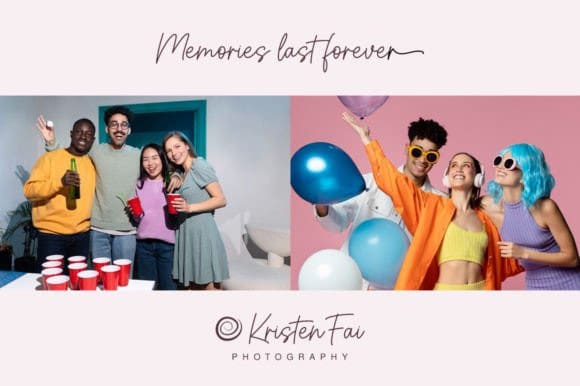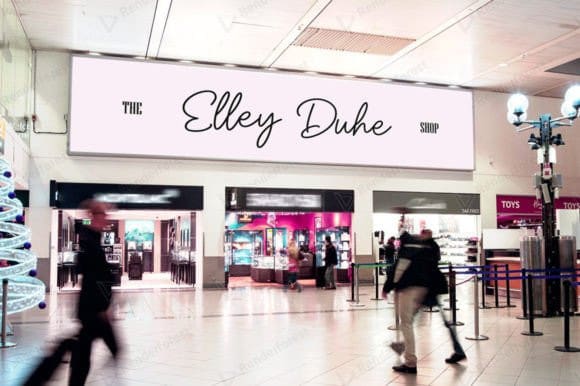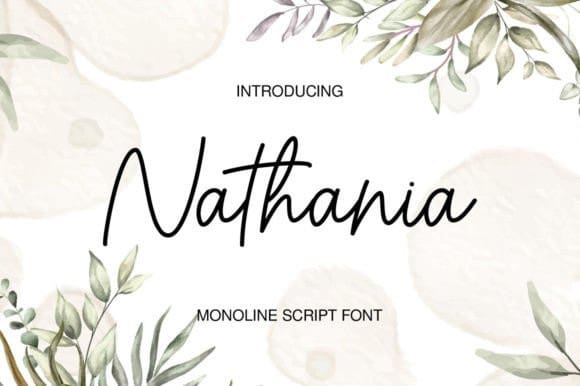
Nathania Monoline Font
Nathania Monoline Font is a beautiful, well-balanced, and new-style script font. It is defined by smooth curves and is perfect for fashion branding or editorial designs. This font is PUA encoded, which means you can access all glyphs and swashes with ease!